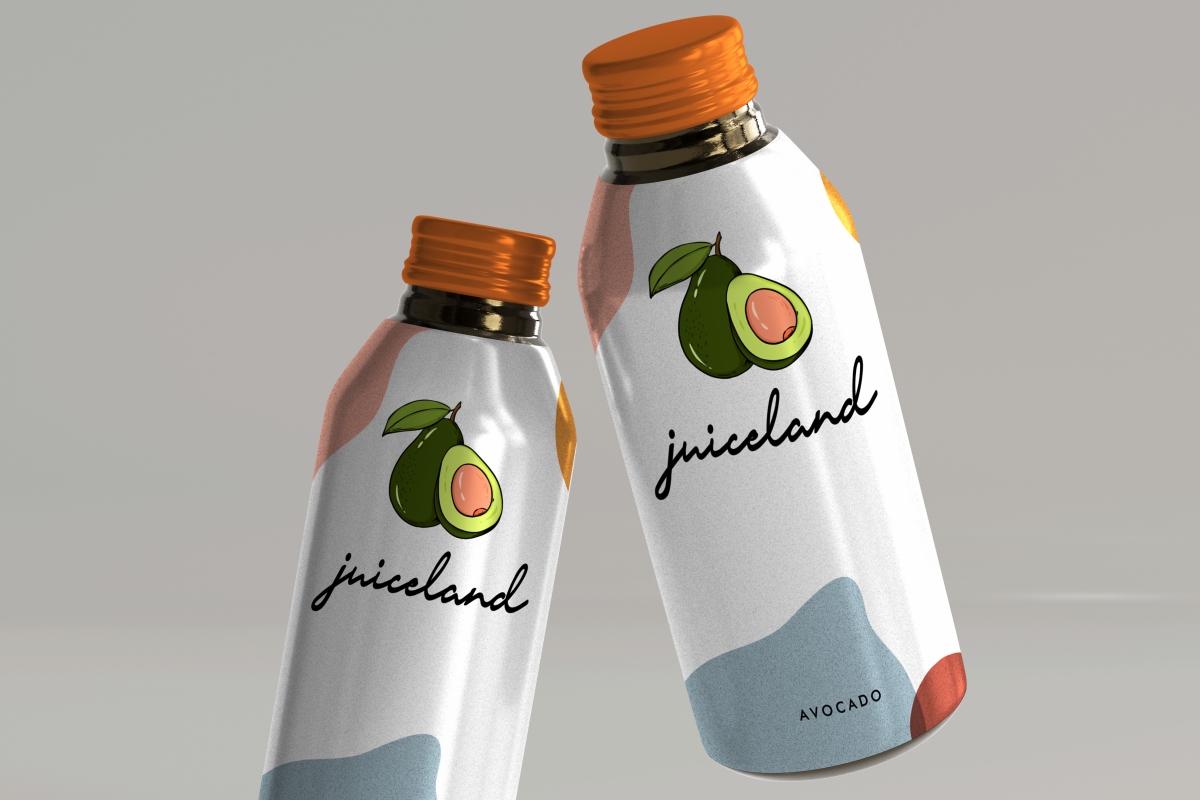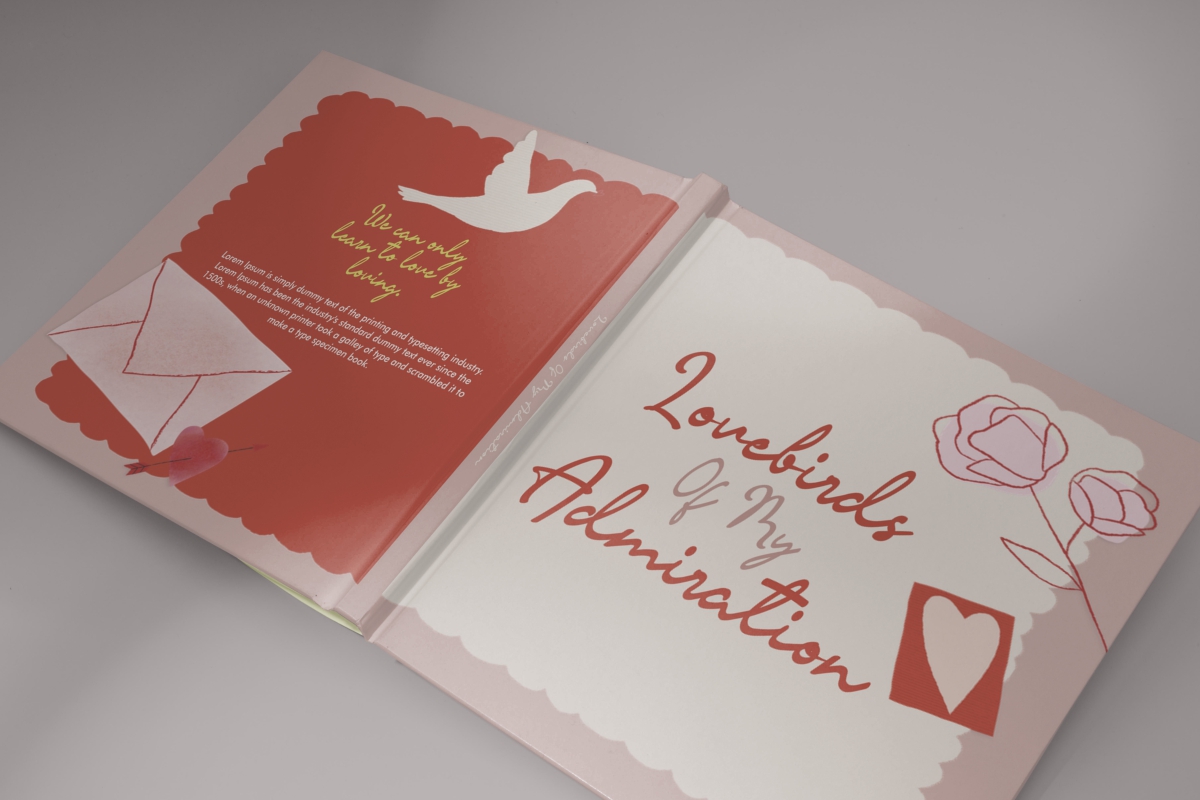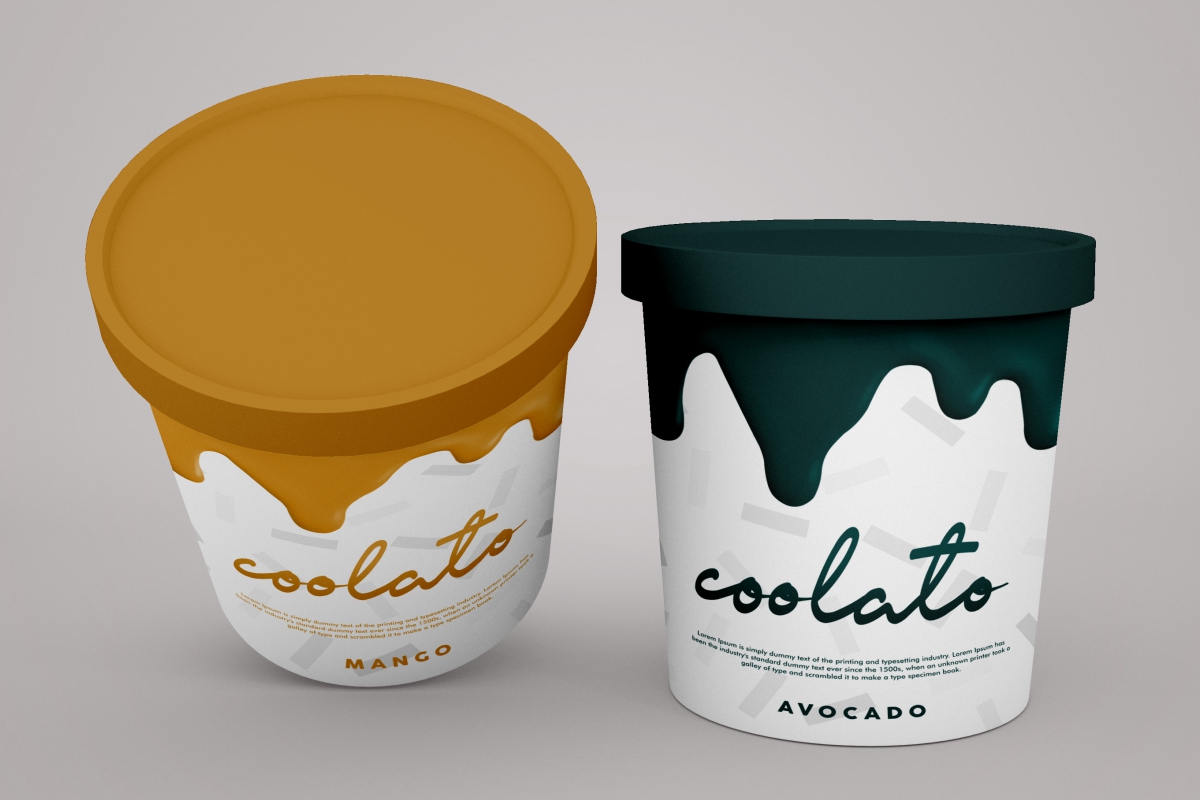
Sweet Avocado Script Font
This is a casual calligraphy font with bold lines that gives a dazzling effect. This stylish font will look great on any design idea and add a fun touch to any of your projects such as brand logo, headline, invitation, label, product packaging, quote, recipe, and more!
Sweet Avocado Font includes full set of Uppercase and Lowercase Basic Characters, Numerals and Punctuation. Also it contains ligature to perfect your design making it suitable for many industries such as author, bakery, café, craft, fashion, juice, publishing, sweet shop, writer, etc.